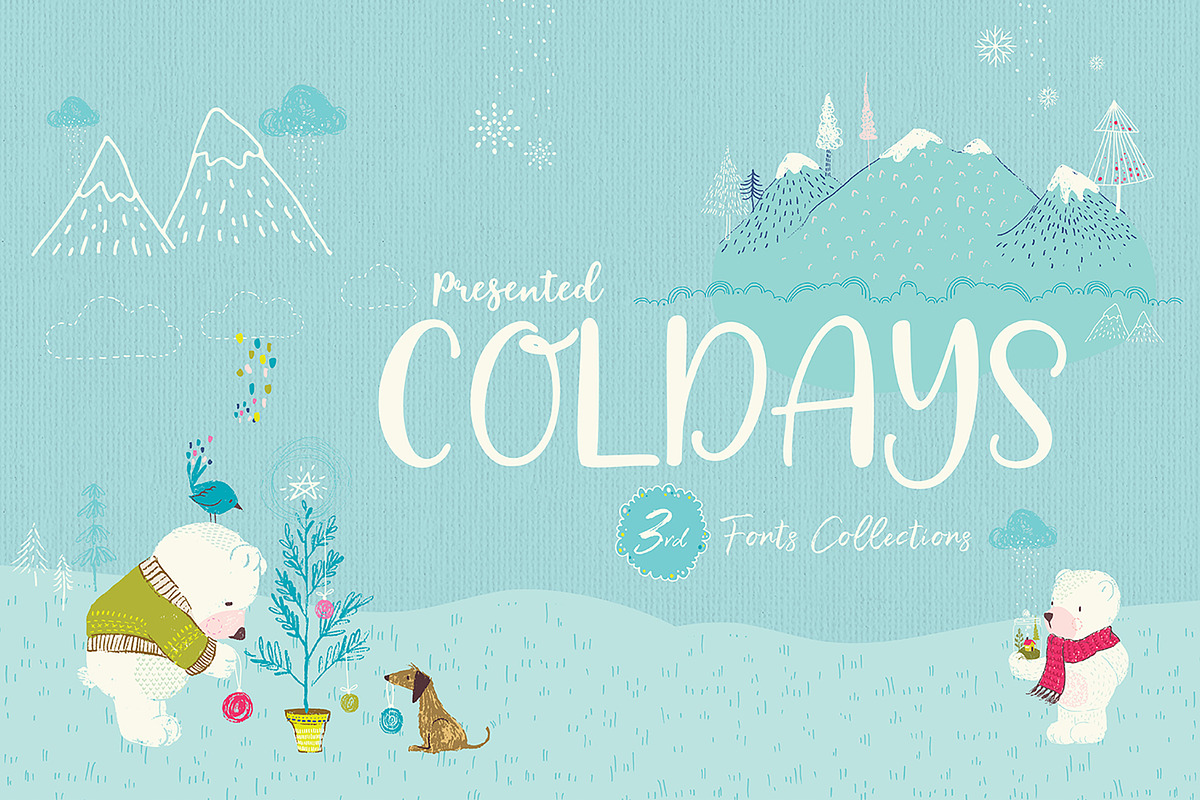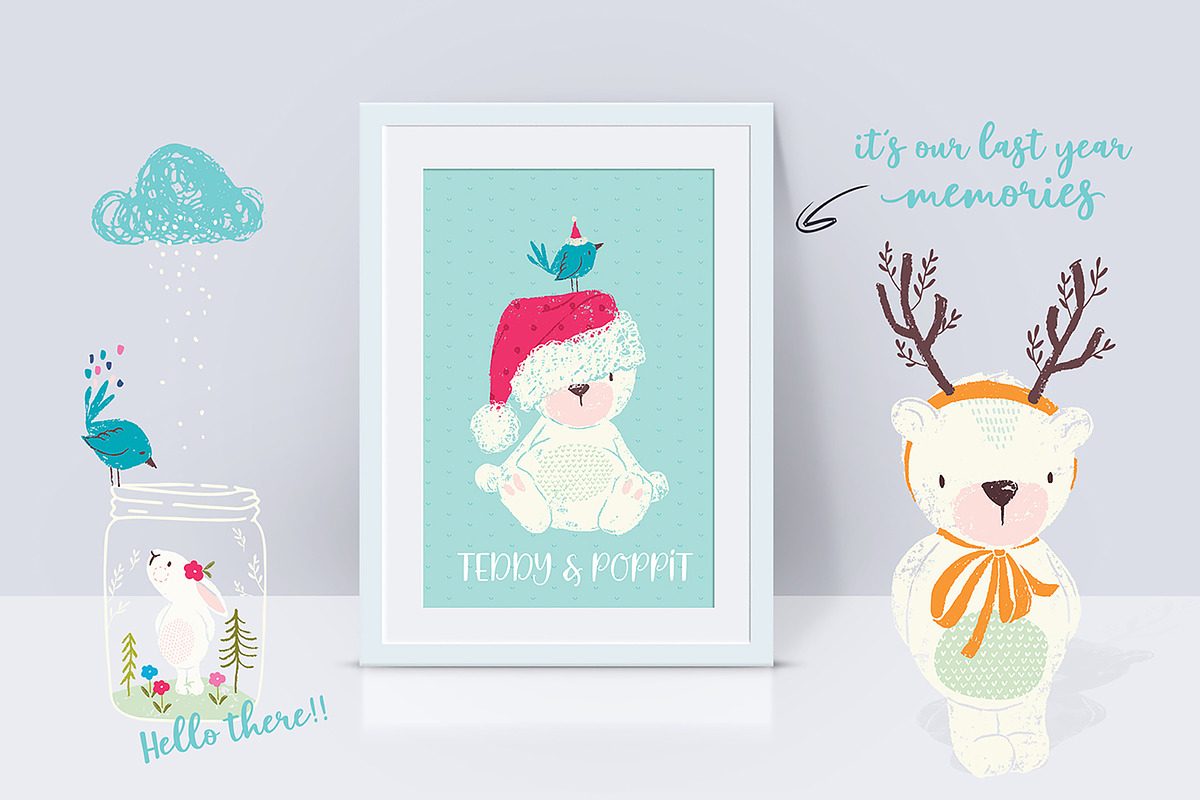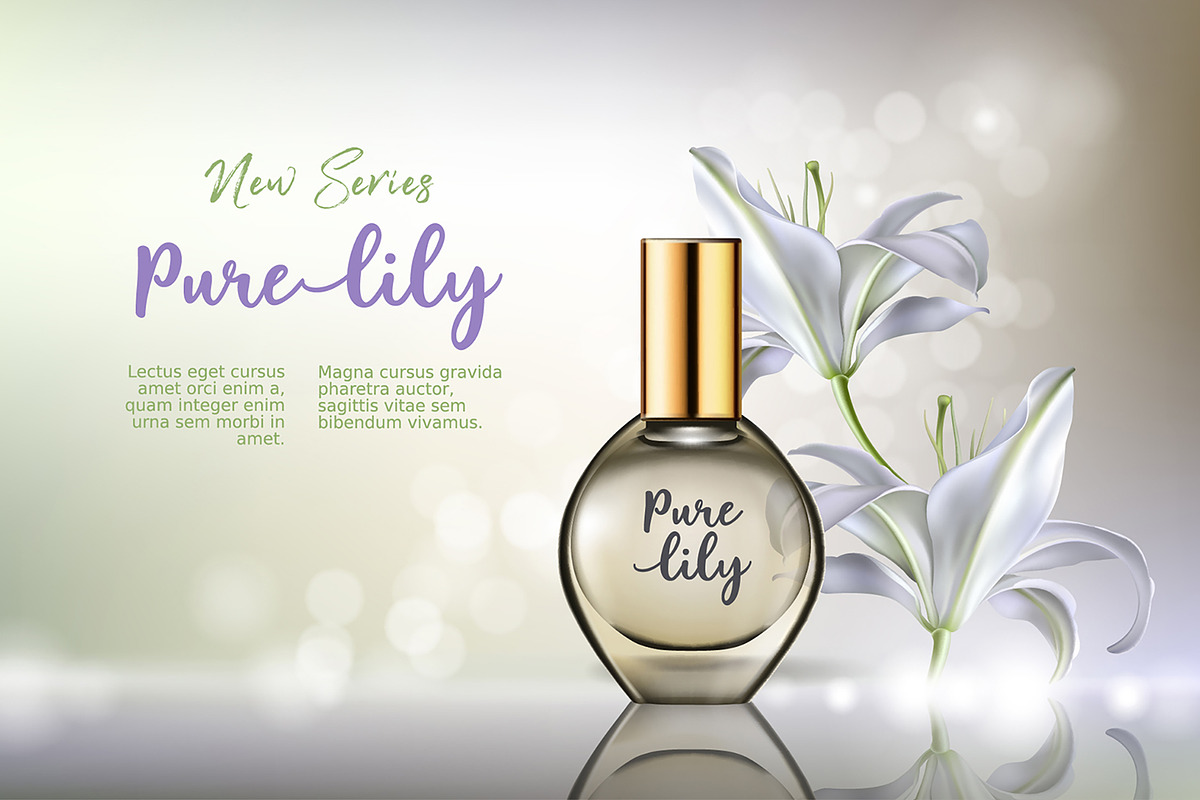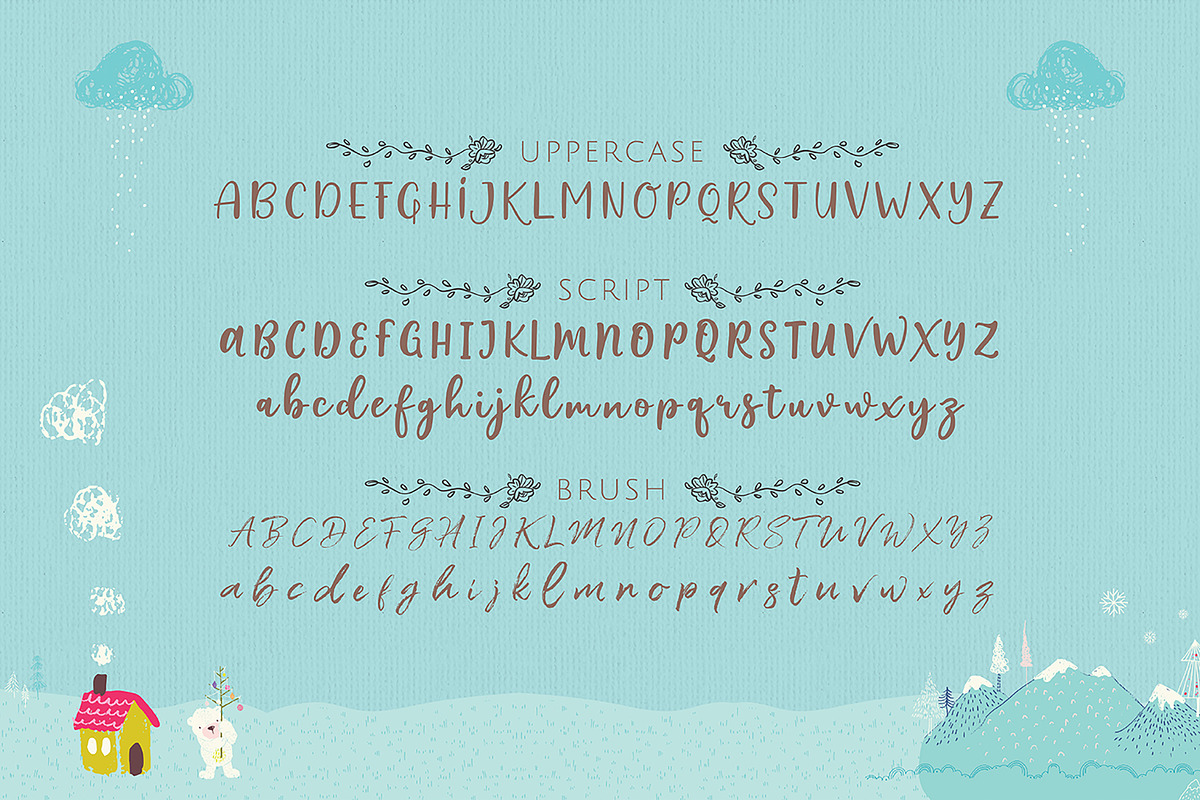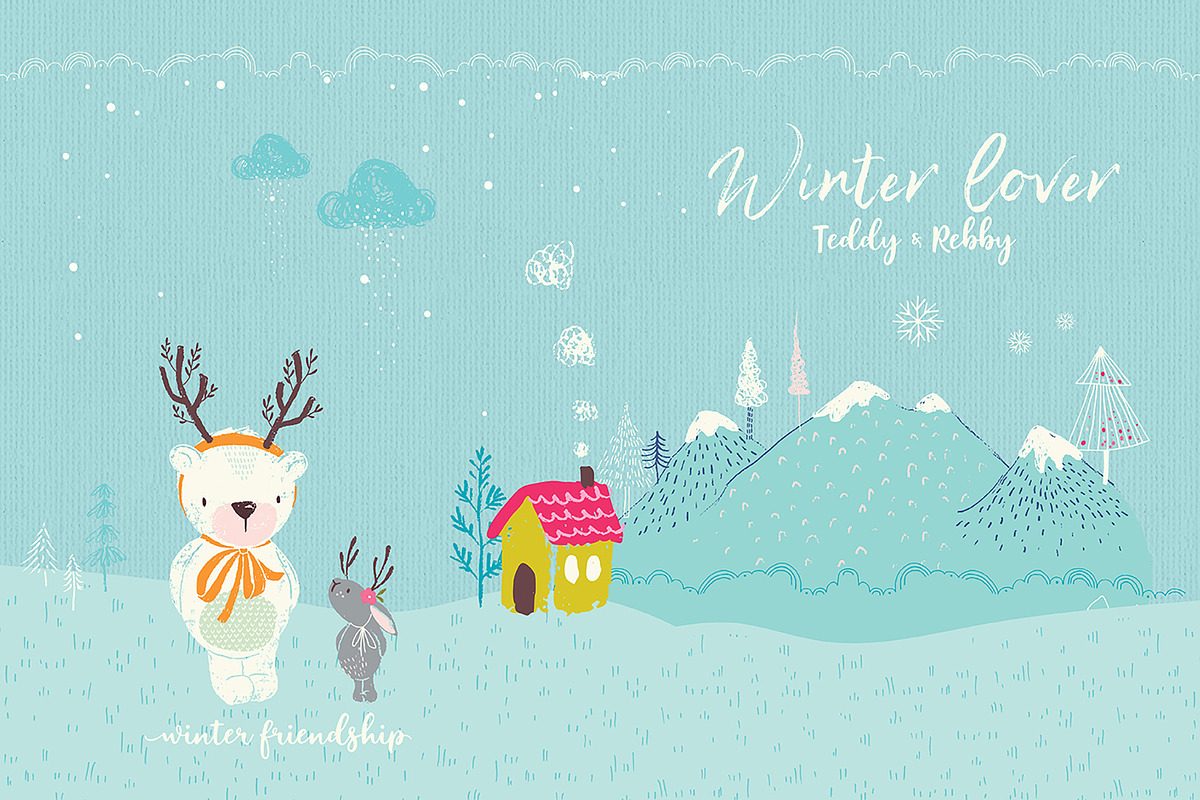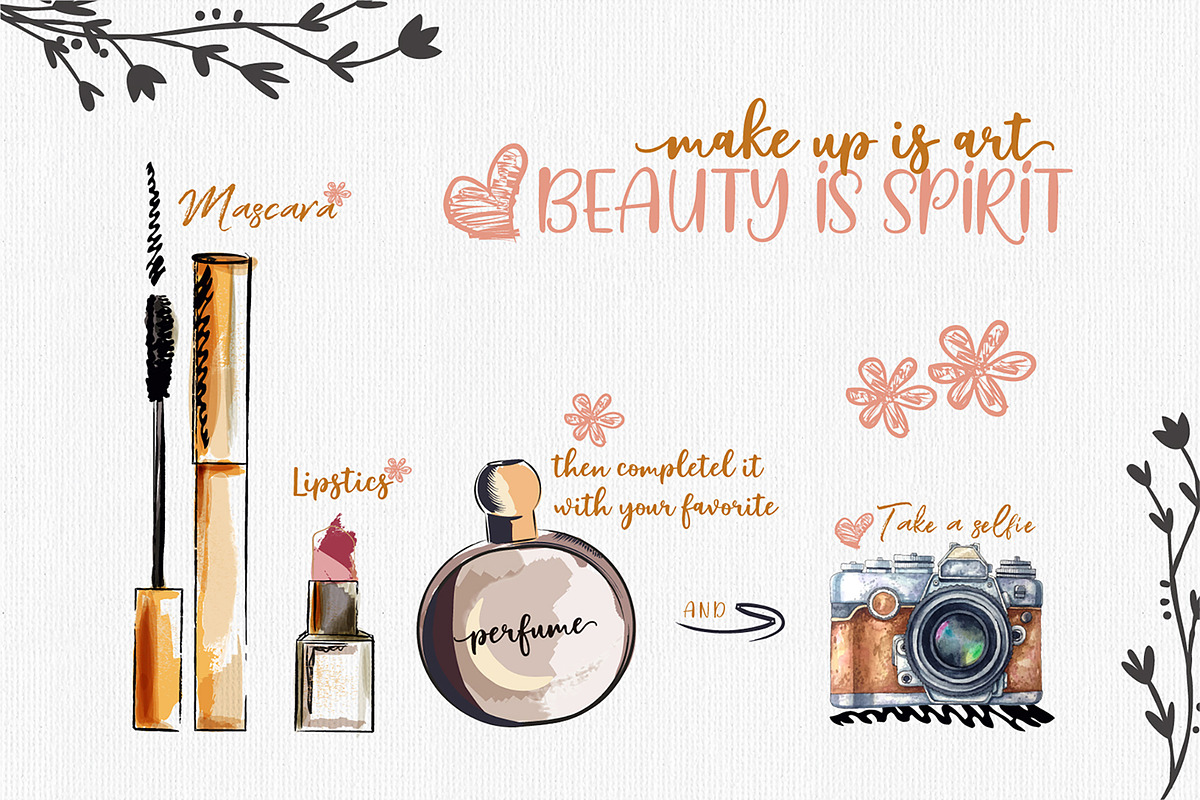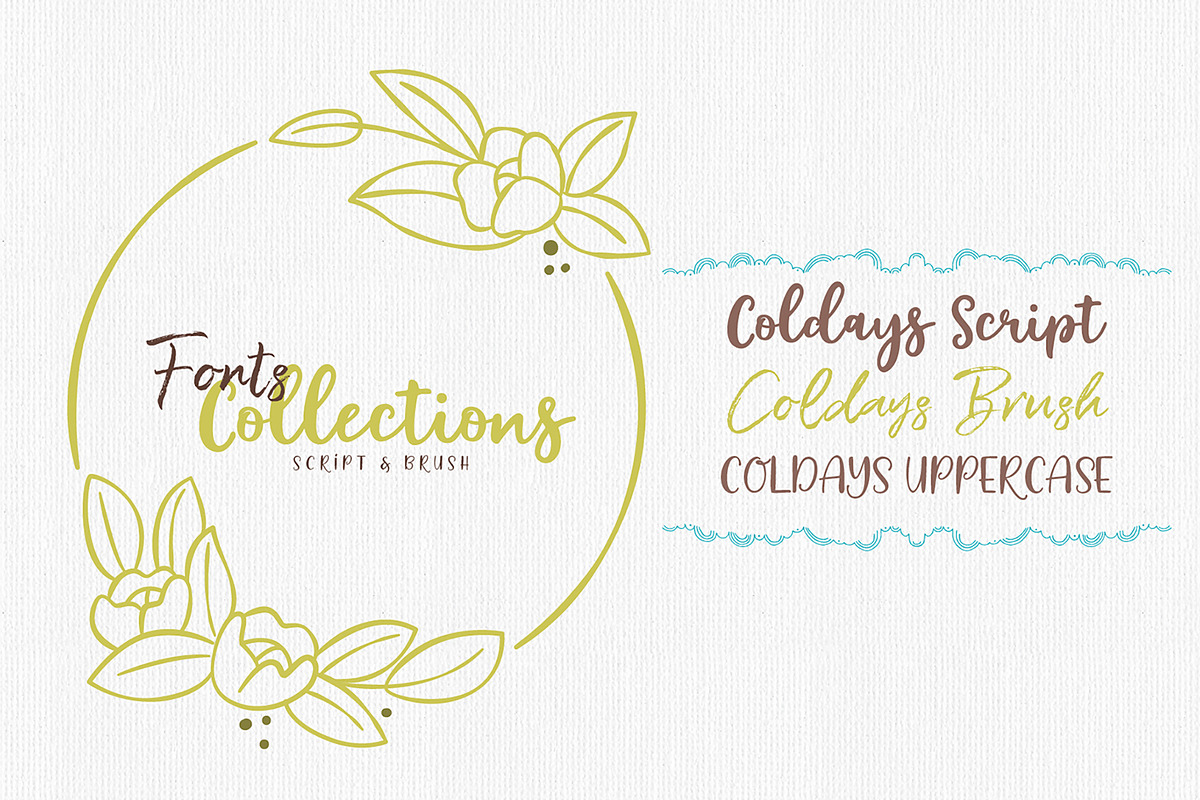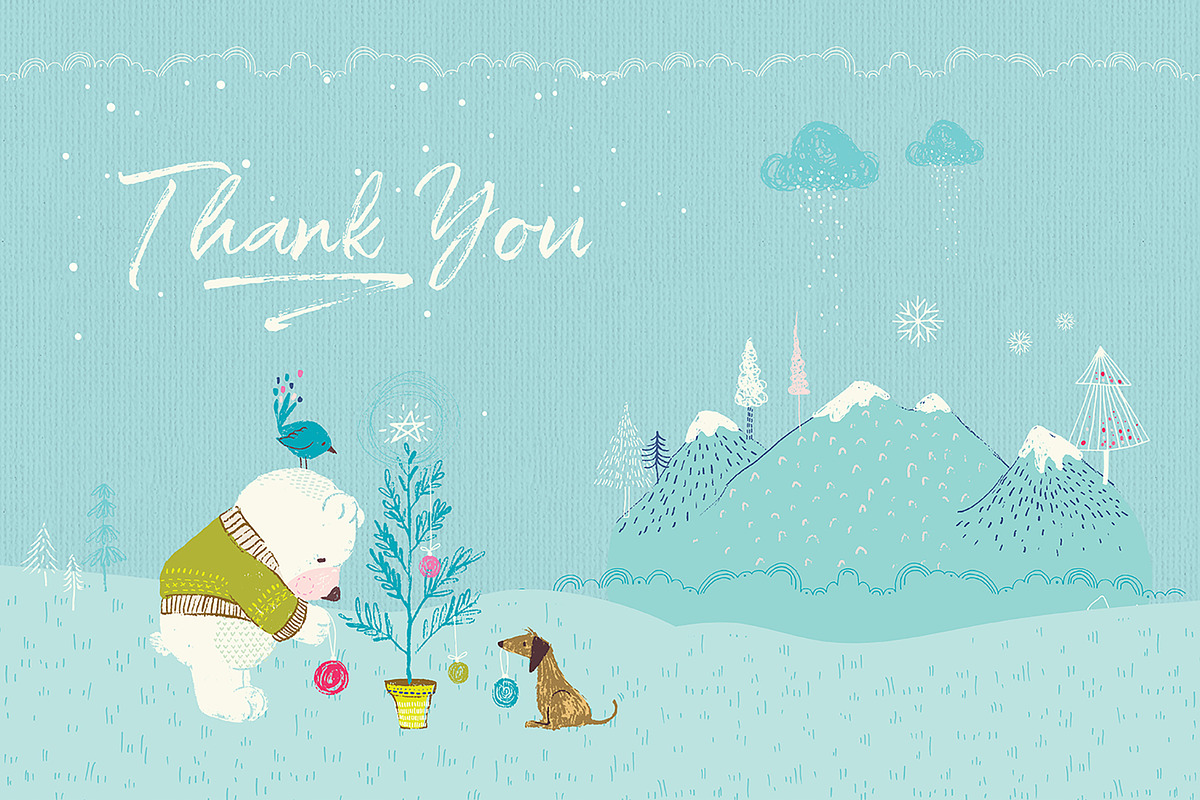
Coldays Memories TRIO Style
Memories is a set of beautiful fonts. This pack combines three trends, Hand Drawn Sans Serif Caps, Brush Script, and Modern Scripts Calligraphy into one gorgeous package. Perfect to use on making a beautiful design combination.
- Coldays Memories Script
- Coldays Memories Brush
- Coldays Memories Uppercase